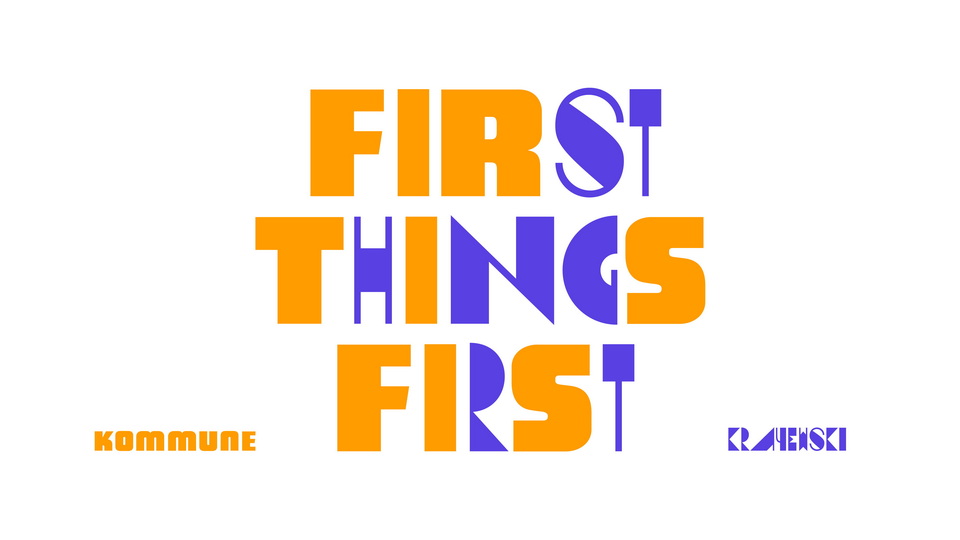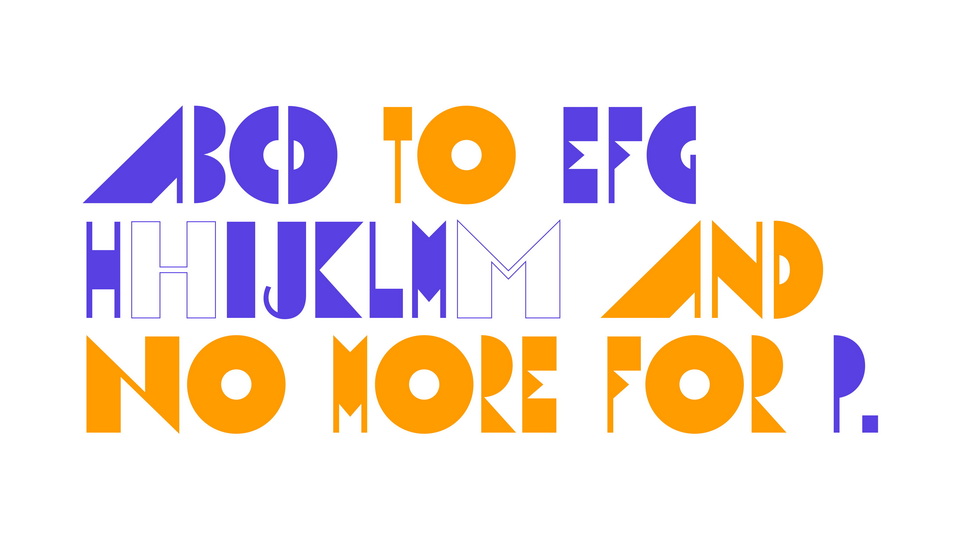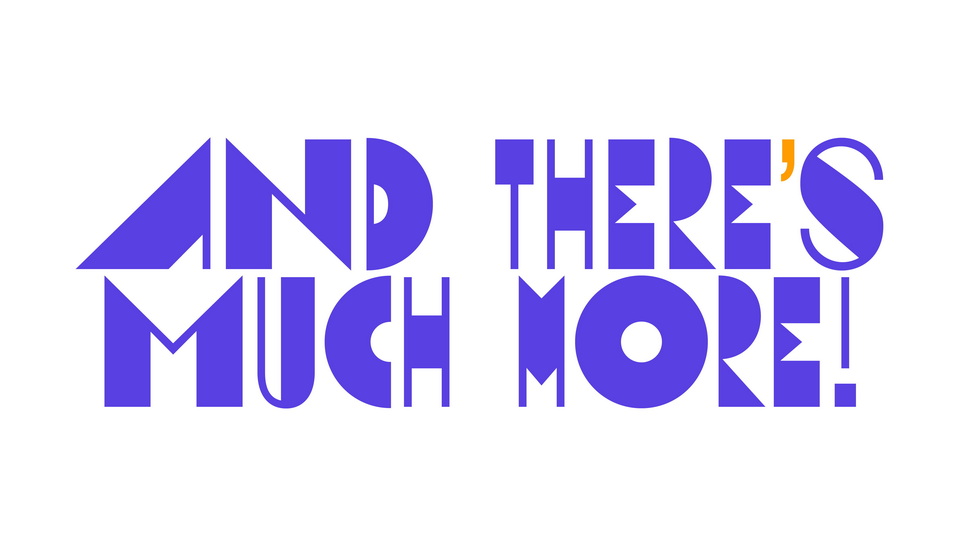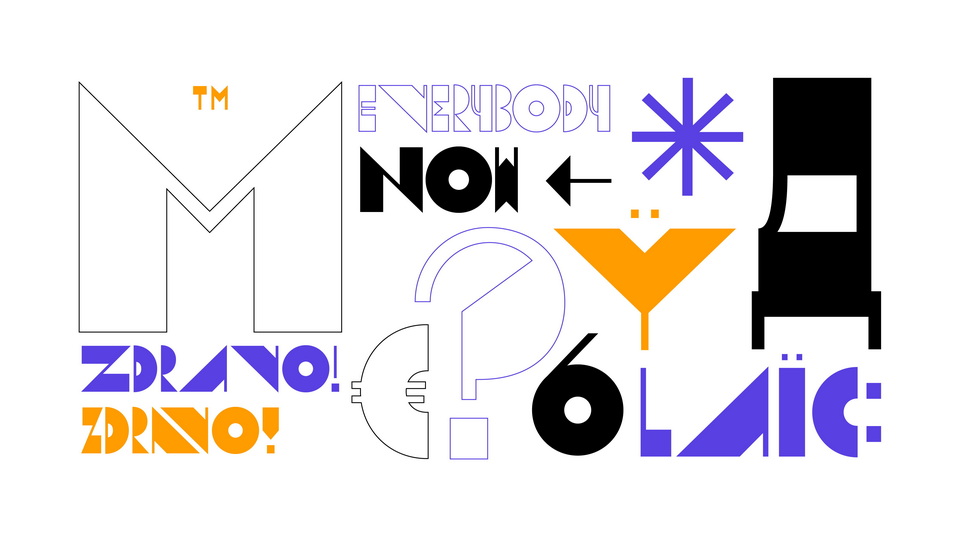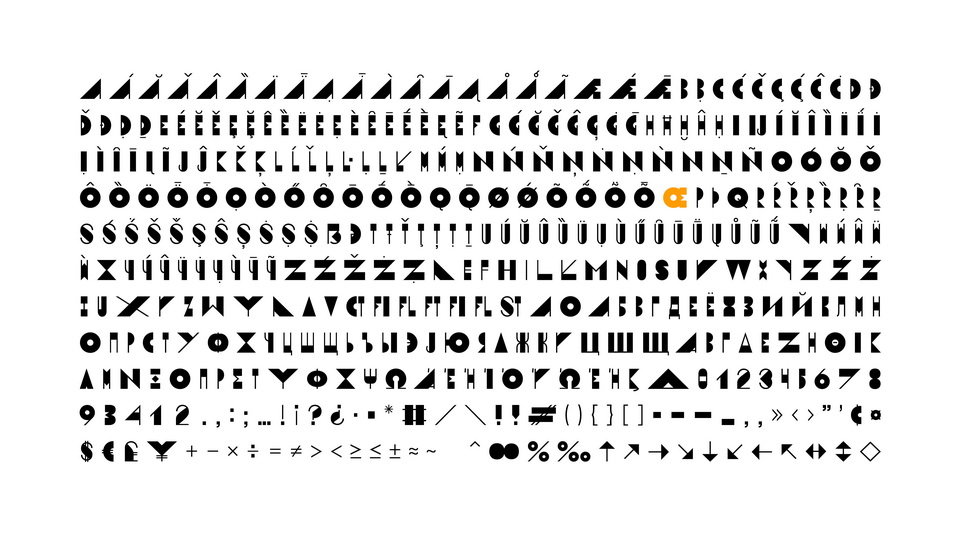
Krayewski is a display typeface based on lettering by Andrzej Krajewski (Andre De Krayewski) for his book entitled “Moje Okładki” (“My Covers”). The book was published in 2014, following an exhibition of posters in the Poster Museum in Warsaw. The book was edited and designed by Tytus Klepacz.
Andrzej Krayewski, born in Poland was an outstanding illustrator, painter and designer who developed his own styles – a mixture of art deco and pop art. Trained on Academy of Fines Arts in Warsaw under supervision of Wojciech Fangor and Henryk Tomaszewski. Many of his designs consists of well-crafter, grid based letterings as well as hand-gesture.
The typeface consists of Latin, Cyrillic and Greek scripts. Multiple alternative characters are available.